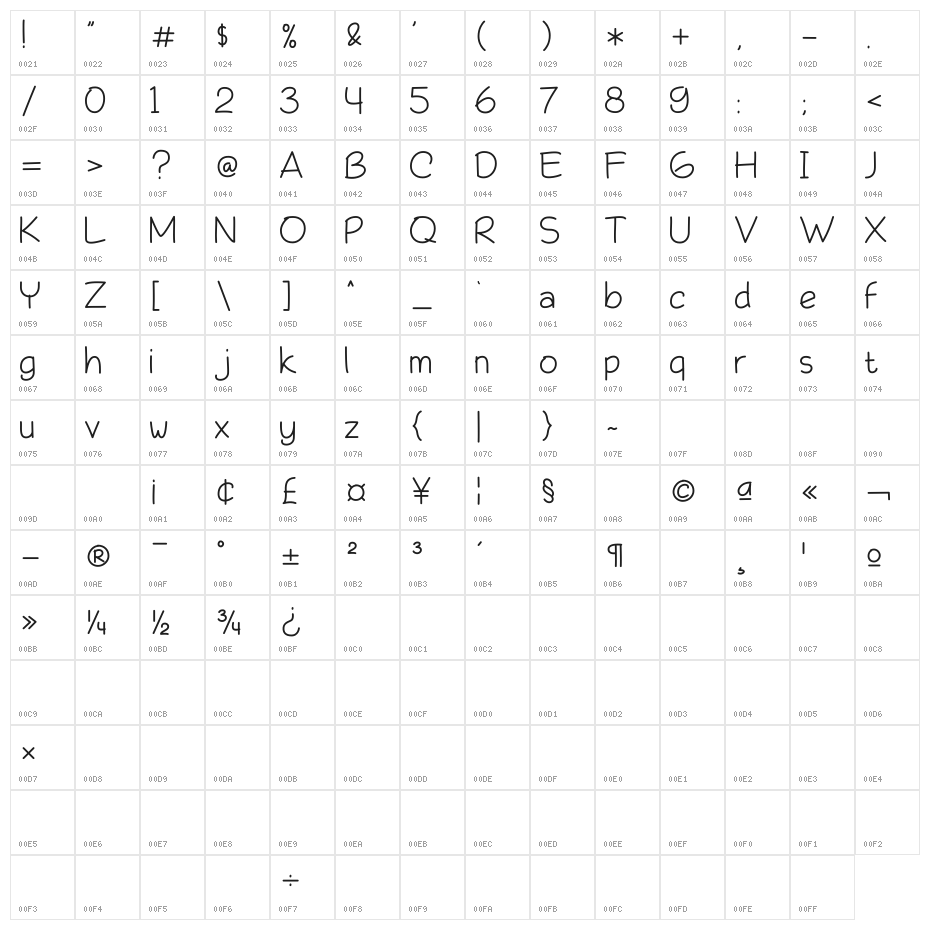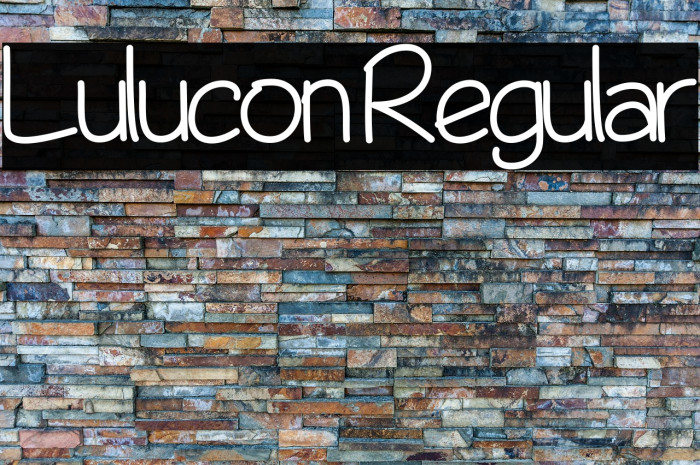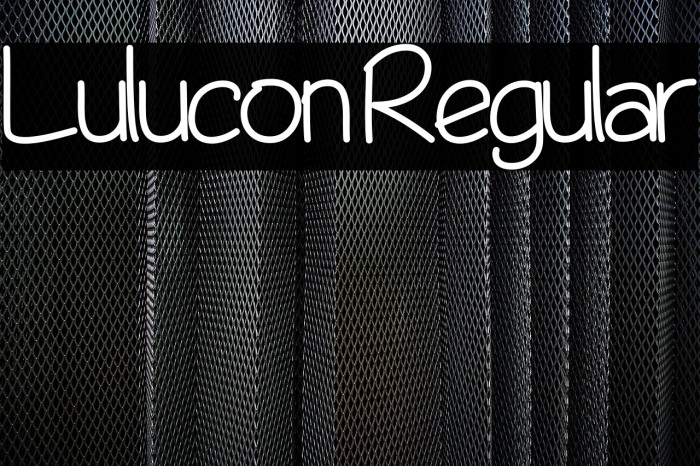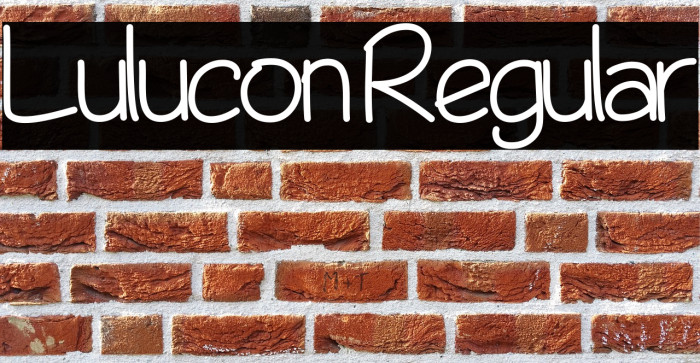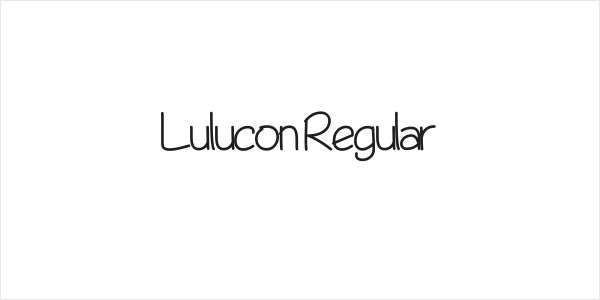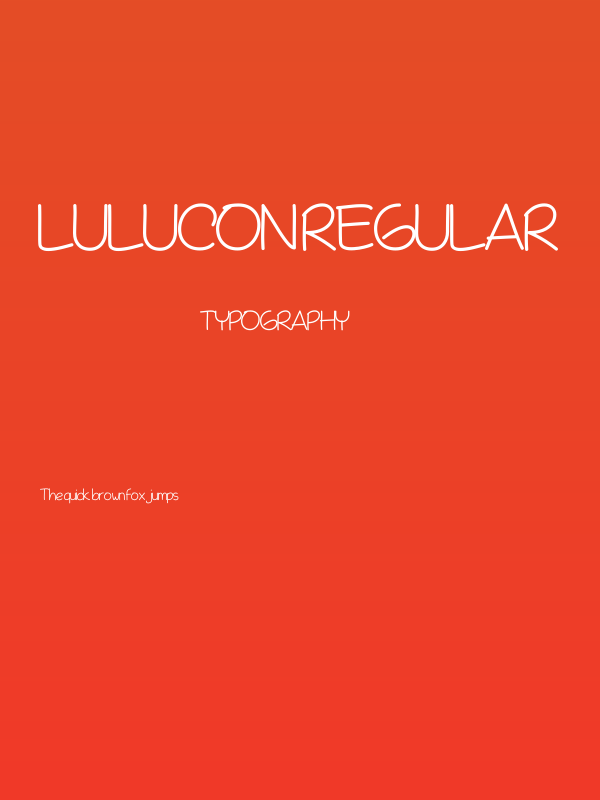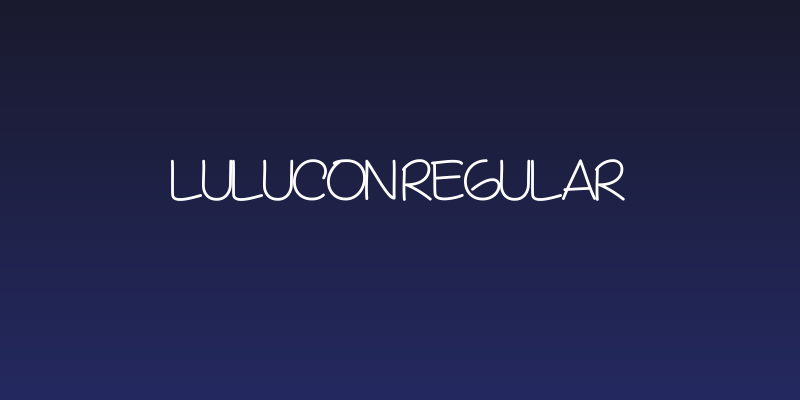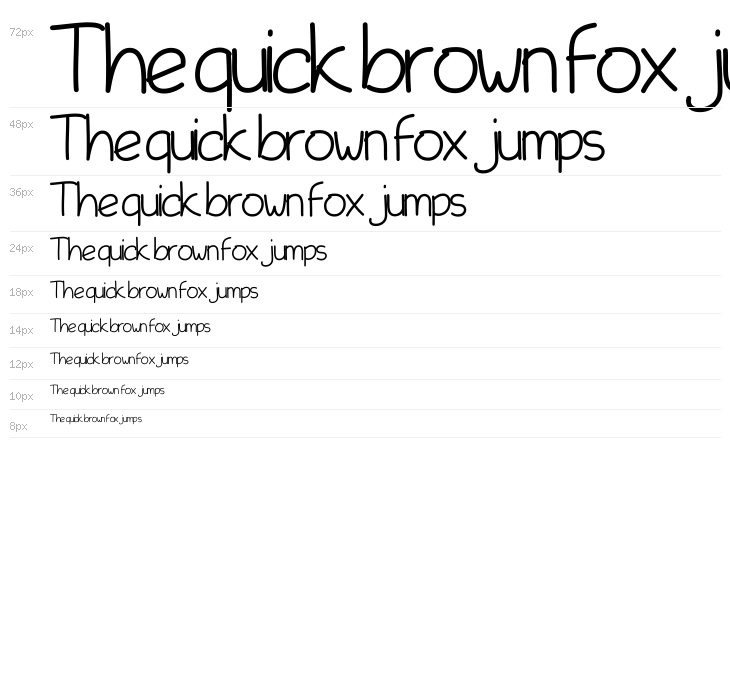
Lulucon Regular Font
Lulucon Regular Description
This font features a playful and casual handwritten style, characterized by its rounded and slightly irregular letterforms. The uppercase and lowercase letters maintain a consistent flow, giving it a friendly and approachable appearance. The numerals and special characters complement the overall style, making it versatile for various informal applications. The strokes are uniform in thickness, contributing to a clean and legible look. This font is well-suited for projects that require a personal touch, such as greeting cards, invitations, or children's books.
| Use Case | Headlines, Informal text, Branding |
| Proposed Projects | Ideal for greeting cards, invitations, children's books, and casual branding. |